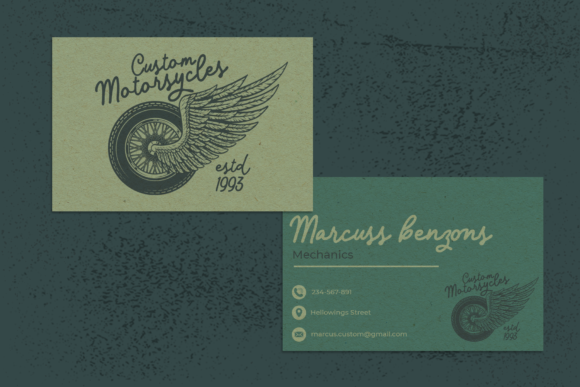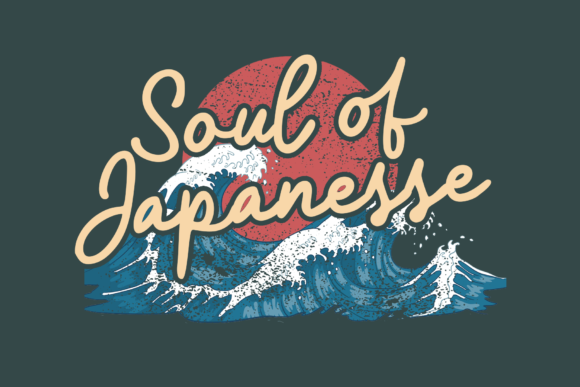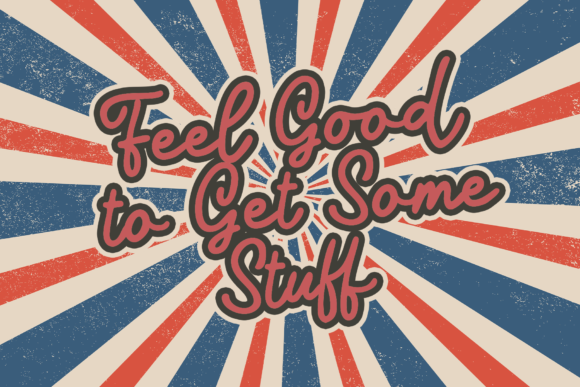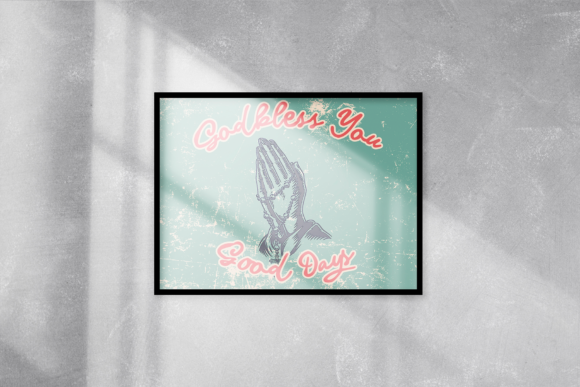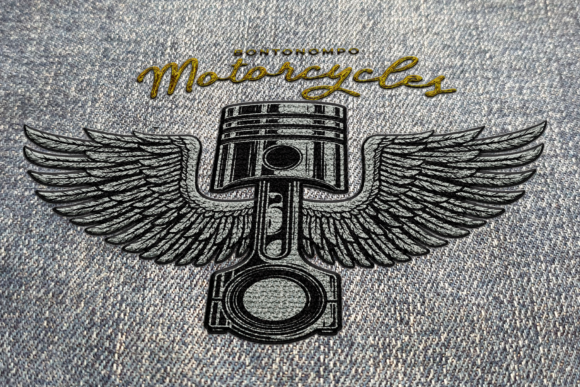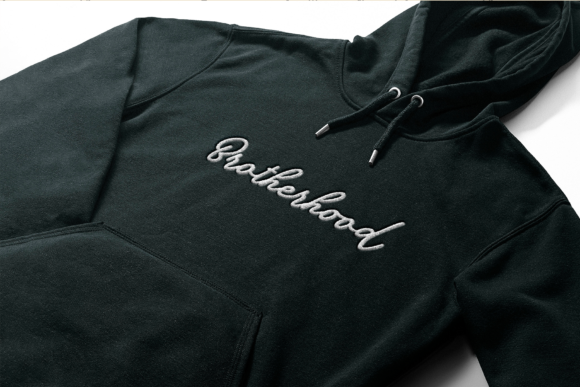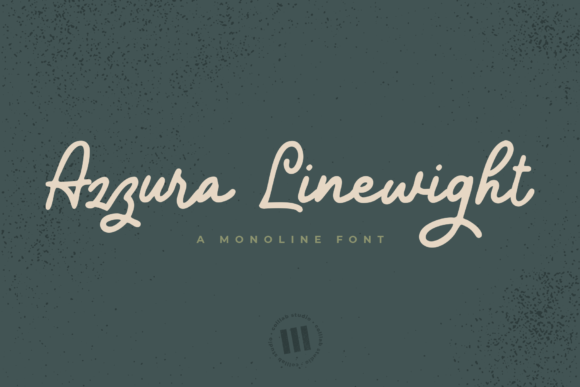
Azzura Lineweight Font: Elevate Your Design with Classic Elegance
In the world of typography, few fonts manage to strike a balance between classic sophistication and modern flair. Azzura Lineweight, however, achieves this delicate balance with ease, bringing a unique and refreshing style to the table. Inspired by the timeless beauty of classic typography, Azzura Lineweight is a handwritten font that injects a dose of elegance and personality into any design project it becomes a part of.
The Essence of Azzura Lineweight
Azzura Lineweight is not just another font; it’s a design statement. Its inspiration from traditional typography is evident, yet it carves out its own niche with distinctive characteristics that set it apart from more conventional fonts. This fantastic handwritten font is versatile, making it an excellent choice for a wide range of applications, from headlines of all sizes to blocks of text that require both uniformity and variation.
One of the standout features of Azzura Lineweight is its incredible versatility. Whether you’re working on a web project, creating print materials, crafting moving images, or designing anything else, Azzura Lineweight promises to look spectacular. Its adaptability stems from its well-crafted design, which maintains readability and aesthetic appeal across different mediums and sizes.
Perfect for Headlines and Text Blocks
For designers and crafters looking for a font that can make headlines pop without overshadowing the body text, Azzura Lineweight is an ideal choice. Its unique style ensures that it grabs attention, making it perfect for headlines of all sizes. Moreover, its legibility and flowing design make it suitable for longer blocks of text, where both maximum and minimum variations in text size are required.
Bringing Unique Style to Design Projects
Azzura Lineweight does more than just complement a design; it enhances it. Its classic inspiration, combined with a modern twist, allows designers to add a layer of sophistication and elegance to their projects. Whether you’re working on branding, advertising, packaging, or digital content, Azzura Lineweight can elevate your design, making it more engaging and memorable.
Why Choose Azzura Lineweight?
• Unique Style: Azzura Lineweight brings a fresh and unique style to the world of typography, setting it apart from more generic fonts.
• Versatility: Suitable for a wide range of design projects, including web, print, and moving images.
• Legibility: Excellent readability, making it perfect for both headlines and longer blocks of text.
• Elegance: Adds a touch of classic elegance to any design, making it stand out.
Tips for Using Azzura Lineweight
To make the most out of Azzura Lineweight, consider the following tips:
• Experiment with Sizes: Azzura Lineweight looks great in all sizes, so don’t be afraid to experiment with different headline sizes and body text.
• Mix and Match: Try pairing Azzura Lineweight with other fonts for a unique contrast, especially with sans-serif fonts for a modern look.
• Adjust Line Spacing: For blocks of text, adjust the line spacing to ensure readability and flow.
Azzura Lineweight is more than just a font; it’s a design tool that can transform your projects with its classic elegance and modern appeal. Its versatility, unique style, and legibility make it an excellent choice for designers and crafters looking to add a touch of sophistication to their work. Whether you’re creating web content, print materials, or anything in between, Azzura Lineweight is sure to make your designs stand out.